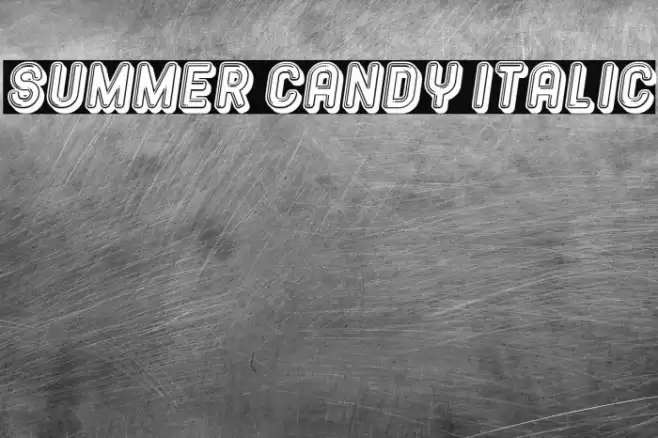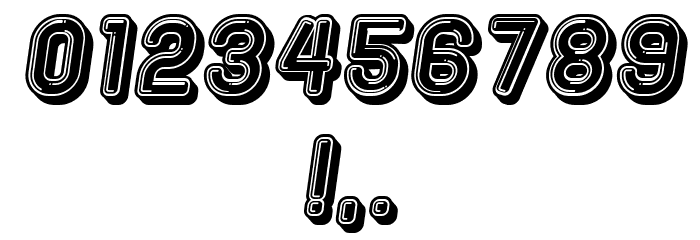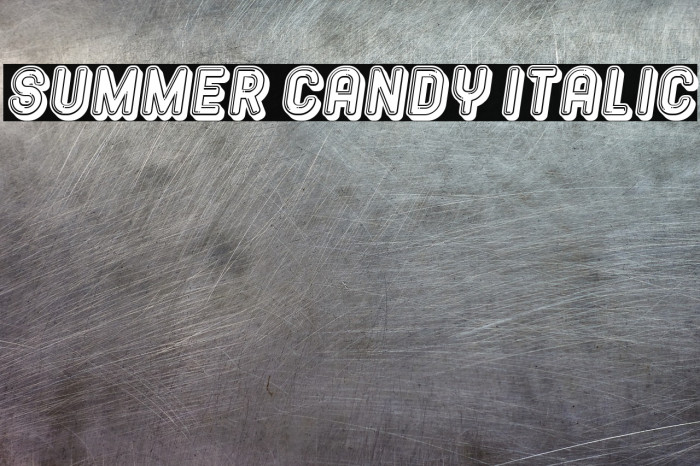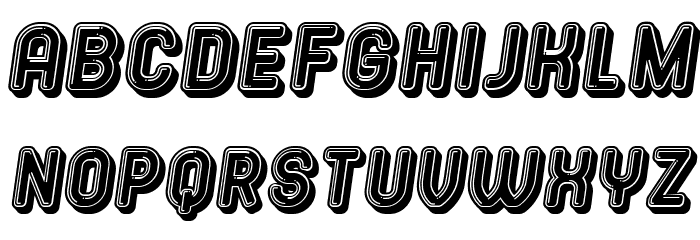
Summer Candy Italic Font
Summer Candy Italic Description
This font features a playful and bold design with a three-dimensional effect, achieved through a combination of thick outlines and inner shadowing. The characters are rounded and slightly italicized, giving them a dynamic and lively appearance. The uppercase and lowercase letters maintain consistent styling, with a uniform stroke width that enhances readability. The numbers and special characters are designed to match the overall aesthetic, making this font versatile for various creative applications. Its unique style is reminiscent of retro or vintage signage, adding a touch of nostalgia to any project.
A bold, playful font with a 3D effect and retro vibe from Uncategorized fonts.
- Proposed Projects: Ideal for posters, logos, branding, and any design needing a fun, eye-catching typeface.
- Overall Style: Retro, Decorative